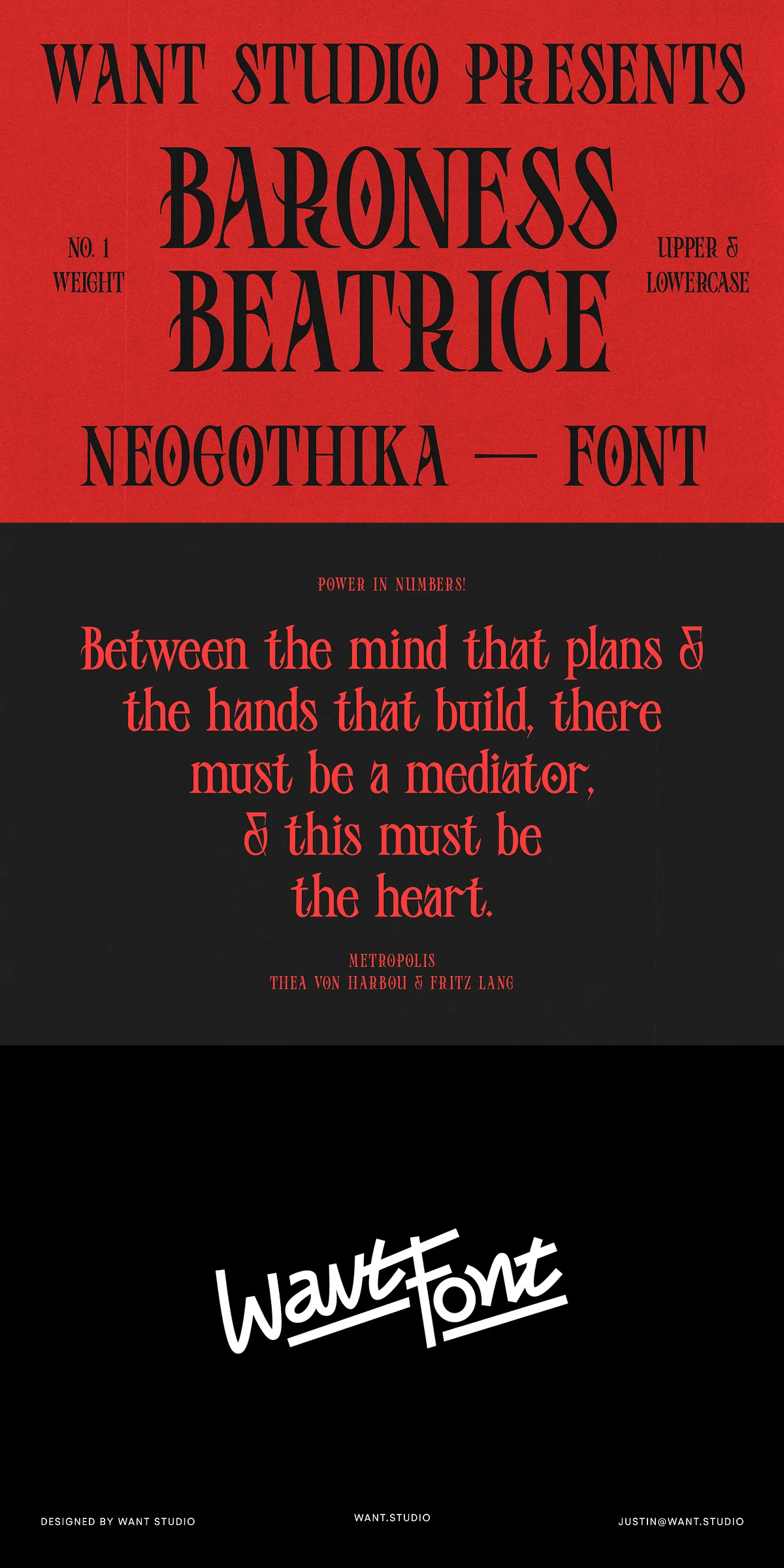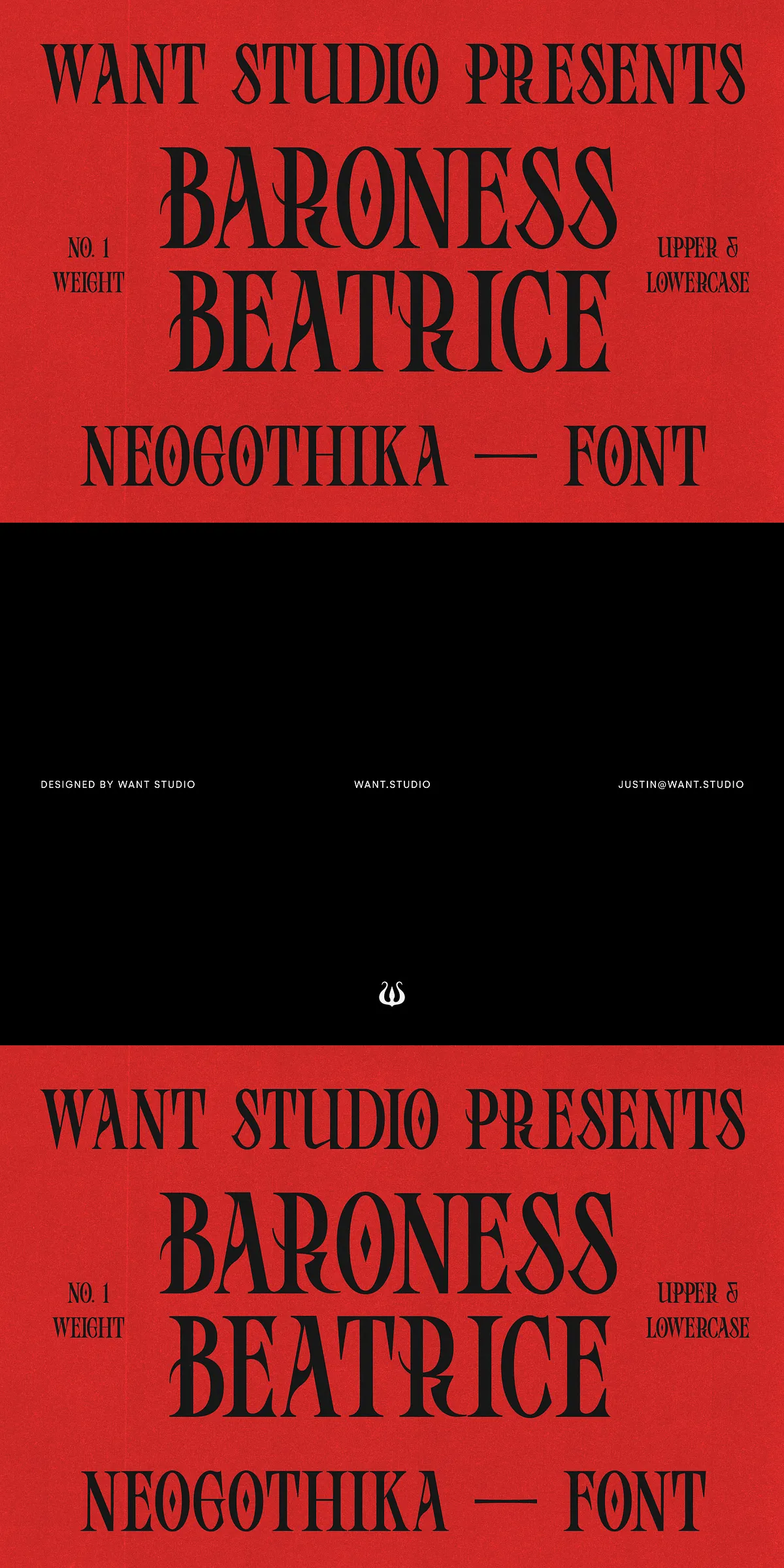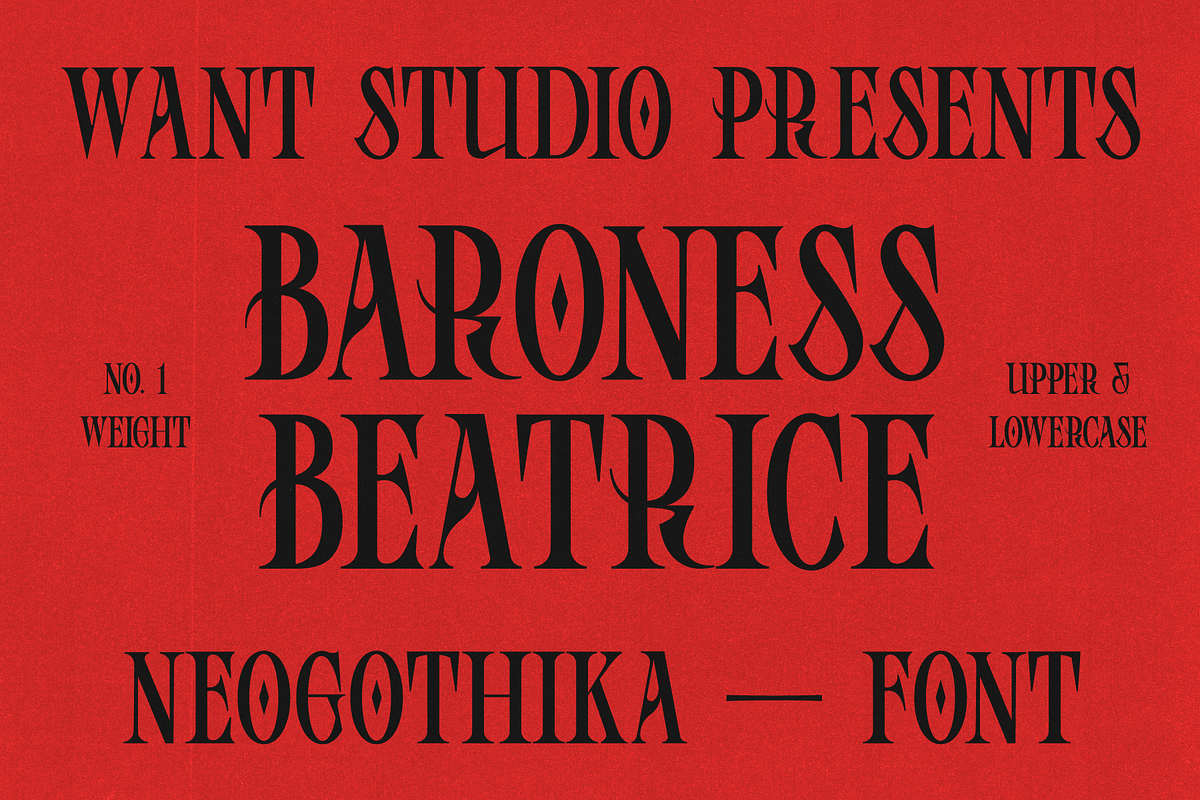
Baroness Beatrice Font
Step into a world of opulence, power, and timeless beauty with Baroness Beatrice—a revolutionary blackletter typeface that redefines the fusion of history and high design. This is not just a font. It’s a statement. A declaration of elegance that commands attention and lingers in memory. Whether you’re crafting luxury branding, editorial layouts, or cinematic visuals, Baroness Beatrice delivers an aura of authority, mystery, and grace that no other typeface can match.
Elevate Your Visual Language with Unmatched Presence
Baroness Beatrice is more than a typeface—it’s an immersive experience. Meticulously crafted to honor the grandeur of historical blackletter scripts, it is reimagined with contemporary precision. Every stroke, ligature, and flourish is engineered for both dramatic impact and typographic clarity. From the sharp angles to the flowing serifs, this font carries the weight of tradition while speaking directly to today’s design sensibilities.
Why Baroness Beatrice Stands Apart
• Powerful Visual Identity: Designed for maximum impact, Baroness Beatrice turns headlines into moments of awe and messages into legends.
• Rich Historical Depth: Rooted in the ornate traditions of 15th-century calligraphy, yet adapted for modern digital platforms with flawless rendering.
• Exceptional Legibility: Despite its dramatic form, it maintains outstanding readability—ideal for titles, logos, and editorial features.
• OpenType Features: Access advanced typographic controls including contextual alternates, ligatures, swashes, and stylistic sets for creative freedom.
No creative project should compromise on style or substance. With Baroness Beatrice, you get both—delivered with a sense of noble refinement that sets your work apart.
Perfect for High-Impact Design Applications
This font thrives in environments where identity matters. Use it to:
• Create luxury brand logos that evoke heritage, exclusivity, and sophistication.
• Design editorial headers and magazine covers that capture the reader’s gaze with intensity.
• Develop cinematic posters, film titles, or stage productions that convey drama, intrigue, and grandeur.
• Enhance event invitations, wedding stationery, or high-end catalogs with a touch of regal elegance.
• Build brand slogans and taglines that resonate with authority and lasting appeal.
Baroness Beatrice is not for the faint of heart. It’s for creators who demand distinction. For brands that refuse to blend in. For artists who understand that true power lies in form, history, and emotional resonance. This isn’t just a font. It’s a legacy in type.
Stop settling for generic, forgettable fonts. It’s time to embrace a typeface that carries meaning, weight, and soul. Baroness Beatrice offers more than letters—it offers presence. With every use, it strengthens your message and elevates your brand.